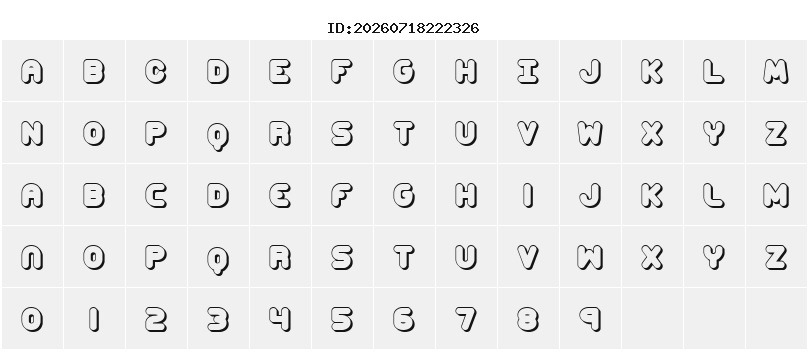
Corpulent Caps Shadow BRK Preview
• Font Name: Corpulent Caps Shadow BRK
• Full Font Name: Corpulent Caps Shadow BRK
About Corpulent Caps Shadow BRK.ttf
Corpulent Caps Shadow BRK.ttf is a modern, elegant sans-serif font designed for ultimate readability and visual harmony. Perfect for branding, headlines, web design, and print materials.